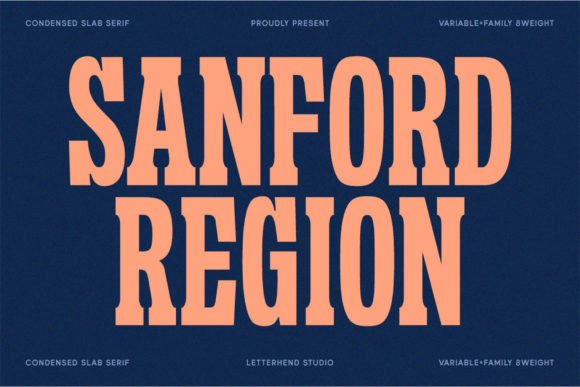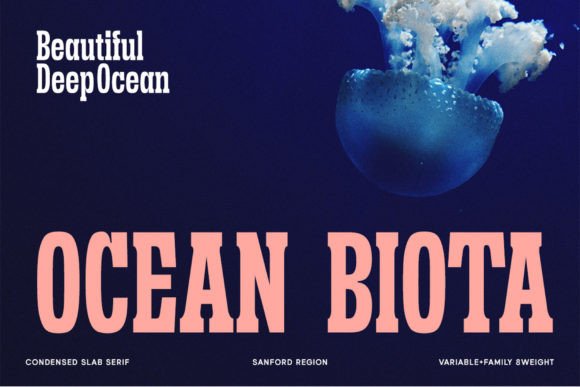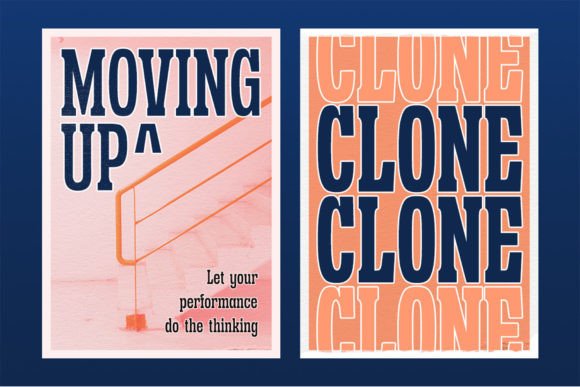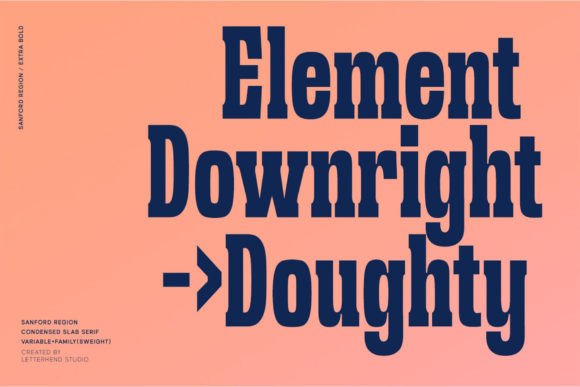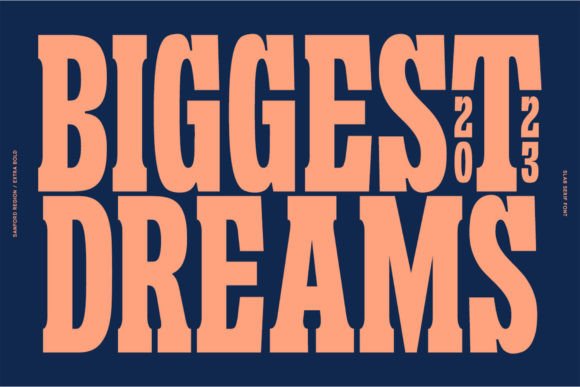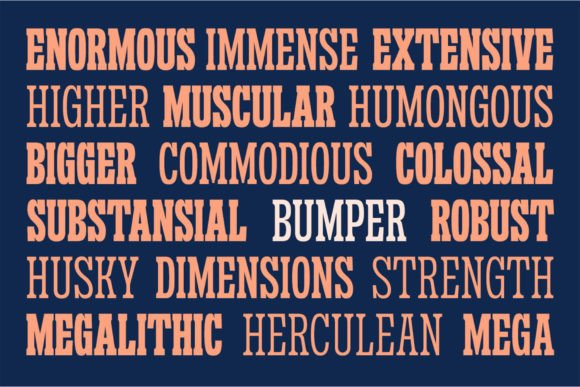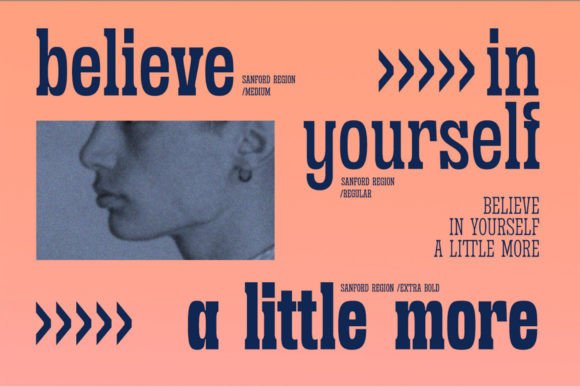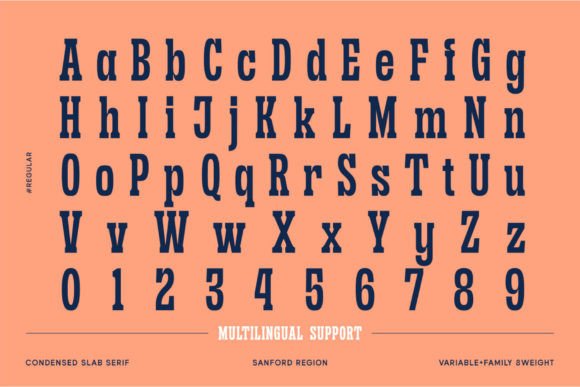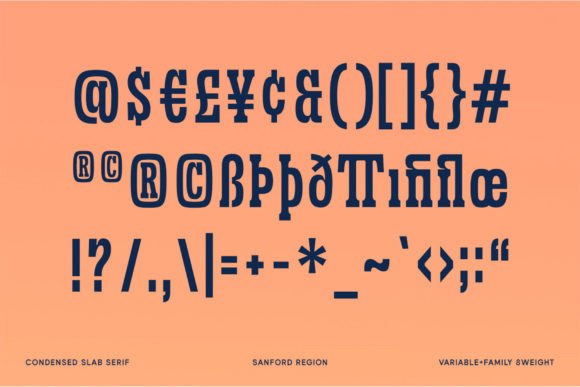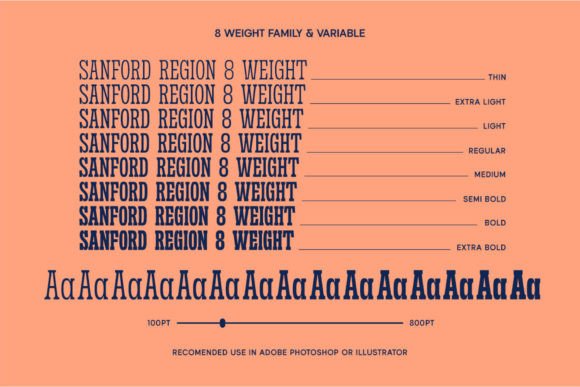
Sanford Region
Sanford Region: A Strong Condensed Slab Serif Font
Sanford Region is a condensed slab serif typeface that features a strong look and feel. This versatile font is perfect for various formal applications, from logos and headlines to invitations and advertising.
Key Features of Sanford Region
• Condensed Design: Offers space-efficient letterforms.
• Strong Character: Brings bold impact to designs.
• Formal Style: Features refined design elements.
• Versatile Application: Adapts well to numerous contexts.
Best Uses for Sanford Region
Thanks to its versatile characteristics, Sanford Region works especially well for:
When using Sanford Region in your designs, keep these tips in mind:
• Try it for headlines or display text to showcase its strong style.
• Use its condensed nature for space-efficient layouts.
• Let its formal character enhance professional projects.
• Take advantage of its versatility across applications.
To sum up, Sanford Region is an excellent choice for designers seeking a strong condensed slab serif font. Its versatility makes it perfect for a wide range of formal applications. Whether you’re creating logos, designing headlines, or developing advertising materials, Sanford Region offers the perfect blend of strength and sophistication.
Furthermore, Sanford Region’s distinctive design allows it to shine in contexts where both impact and formality are key. For instance, from signage to wedding cards, this font can elevate your projects with its refined style. Also, its strong yet elegant appearance works particularly well in designs that aim to make a professional impact.
In conclusion, Sanford Region truly captures the essence of strong design in condensed slab serif typography. Its versatility across different applications shows how well it can serve various creative needs. Therefore, for those wanting to add a touch of bold sophistication to their work, Sanford Region can enhance any design with its distinctive style. Ultimately, it’s perfect for designers aiming to make a strong, formal impact across a wide range of projects.